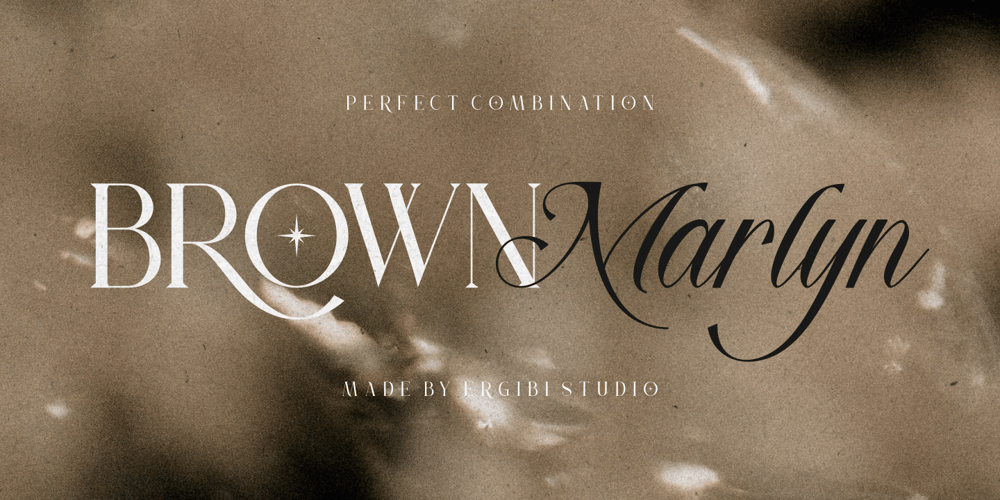
Brown Marlyn Font Family was designed by Riyadh Rahman and published by Ergibi Studio. Brown Marlyn contains 2 styles and family package options. This is the perfect combination of fonts, we are proud to introduce BROWN MARLYN, these fonts are of two types serif and script. Display Serif inspired by famous logo, This typeface has been made carefully to make sure its premium quality and luxury feel. The ligatures on serif makes this typeface unique and stands out rather than the regular serif font, perfectly for headlines, wedding, social media, logos, posters, packaging, T-shirts,coffee shops, restaurants, magazine’s headers, signs or gift/post cards,cafe’s and weddings or any type of advertising purpose.What’s Included : Standard glyphs Ligatures International Accent Works on PC & Mac Simple installations If there is a problem, question, or anything about my fonts, don’t hesitate to ask!Big Thanks ~ Ergibi Studio